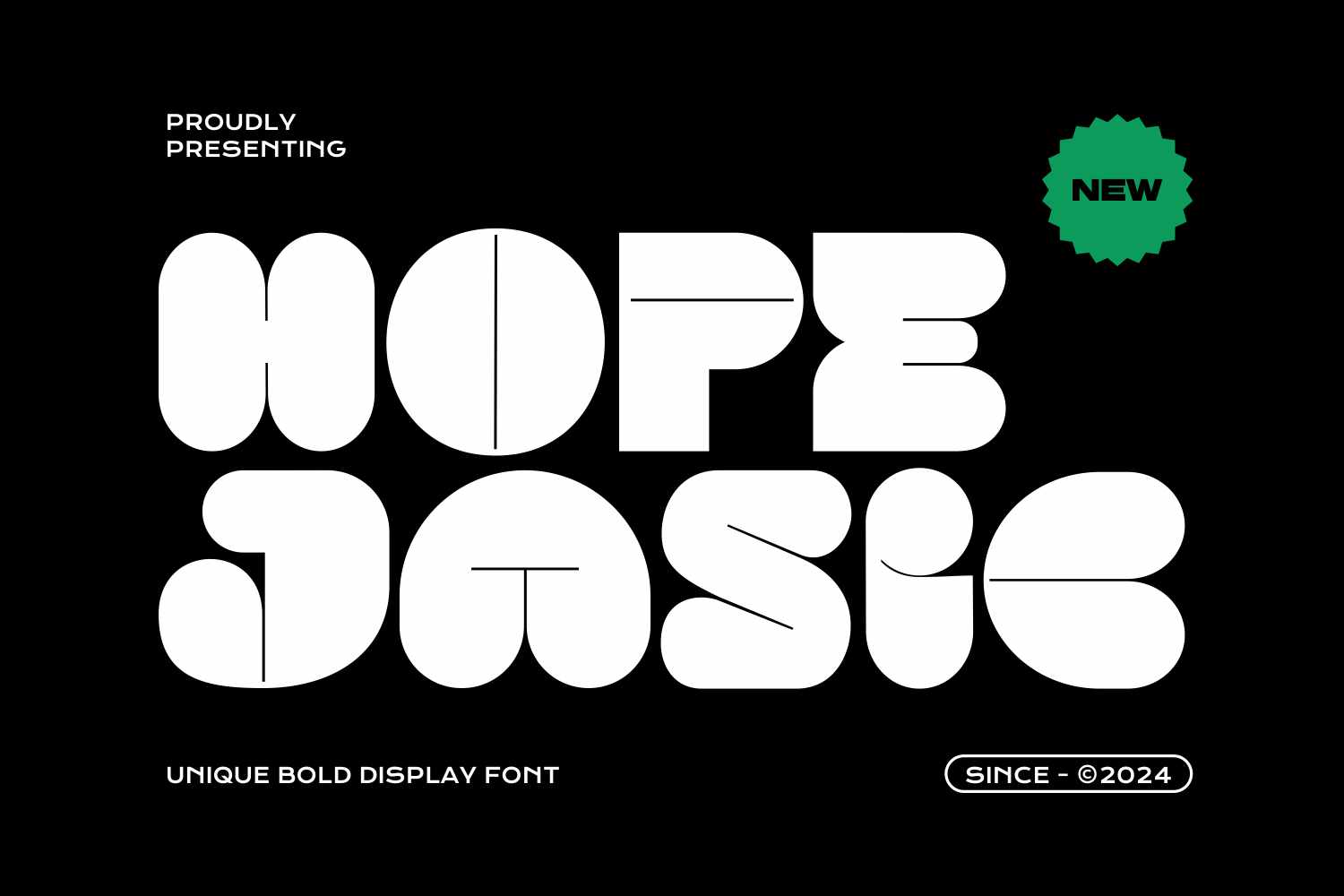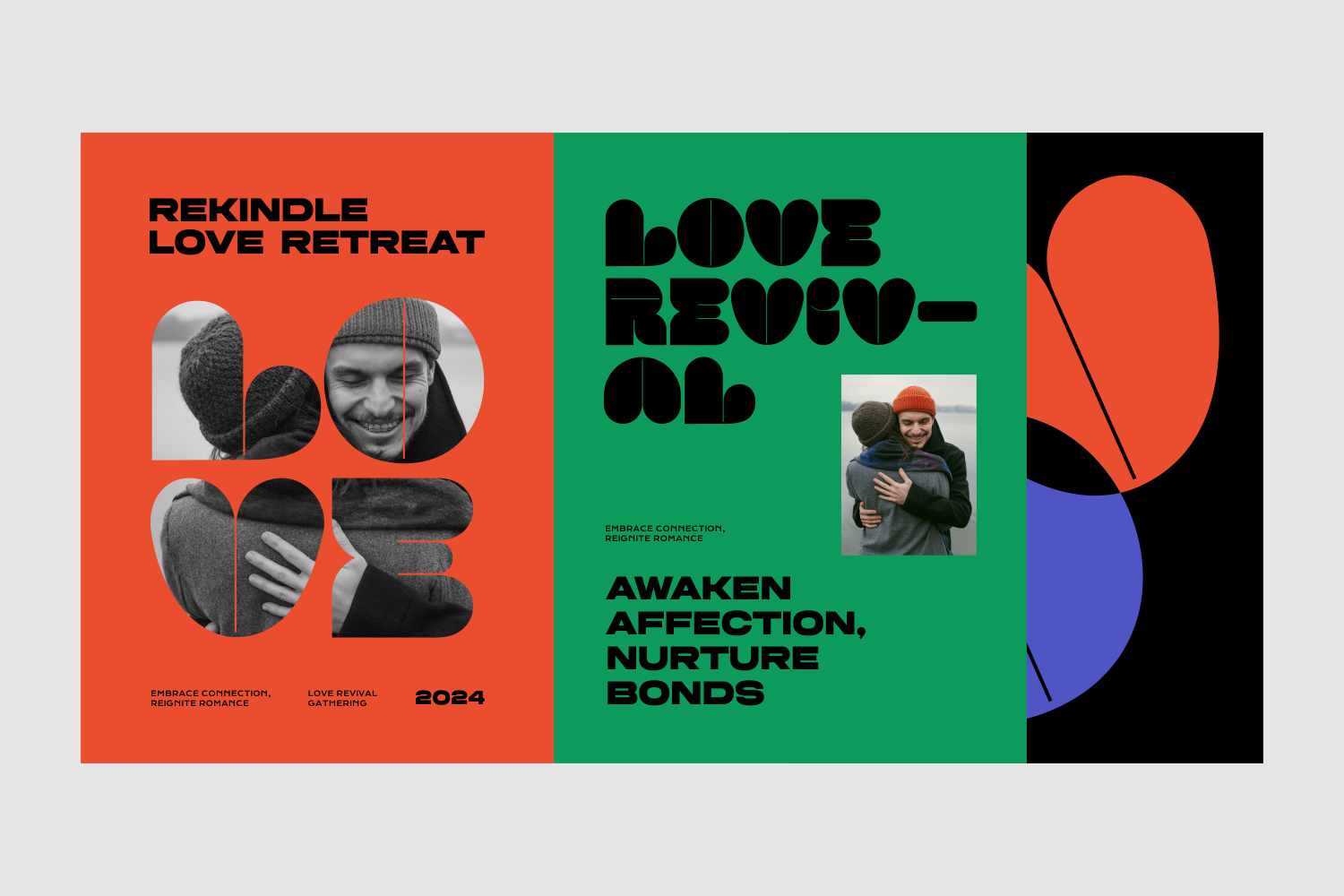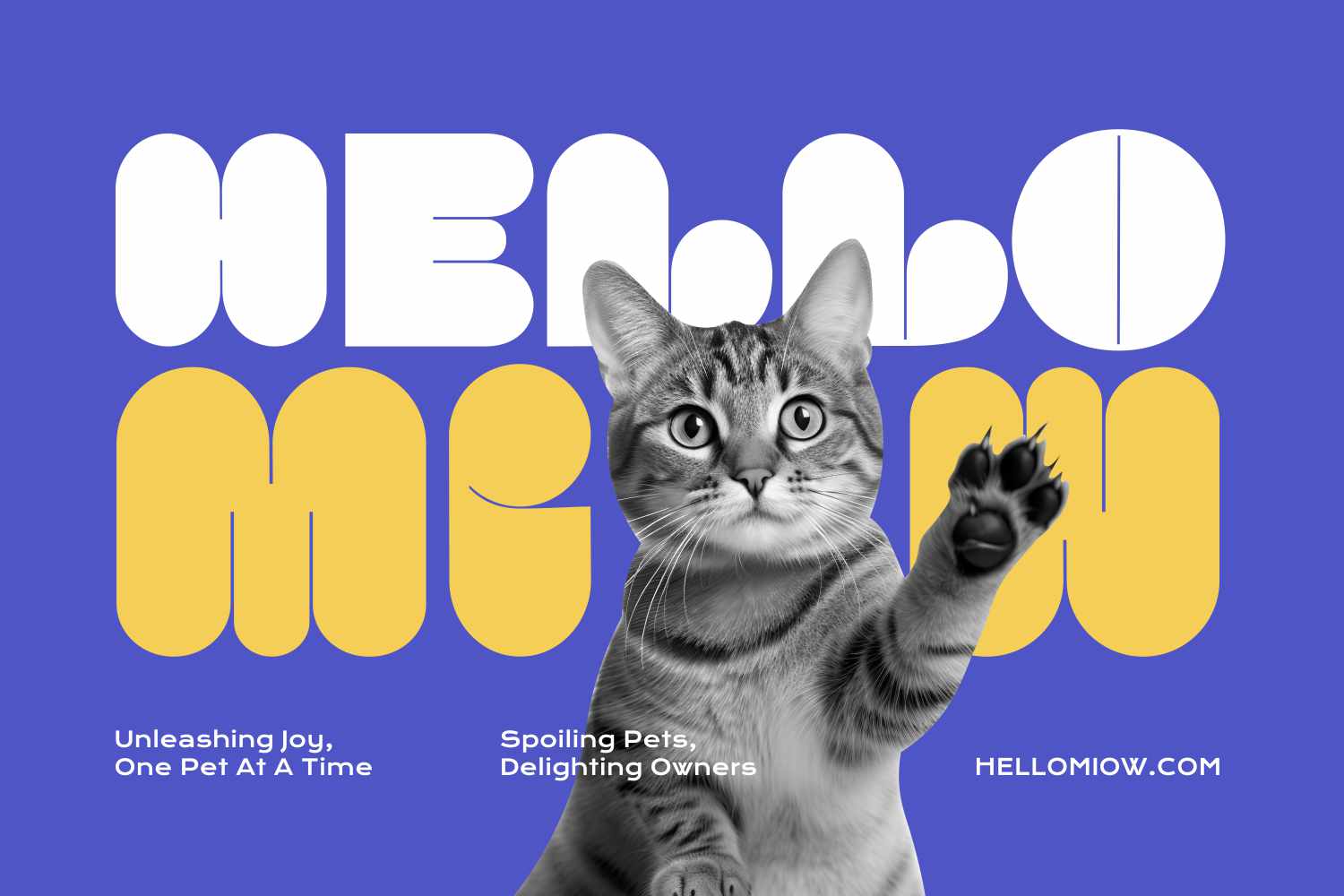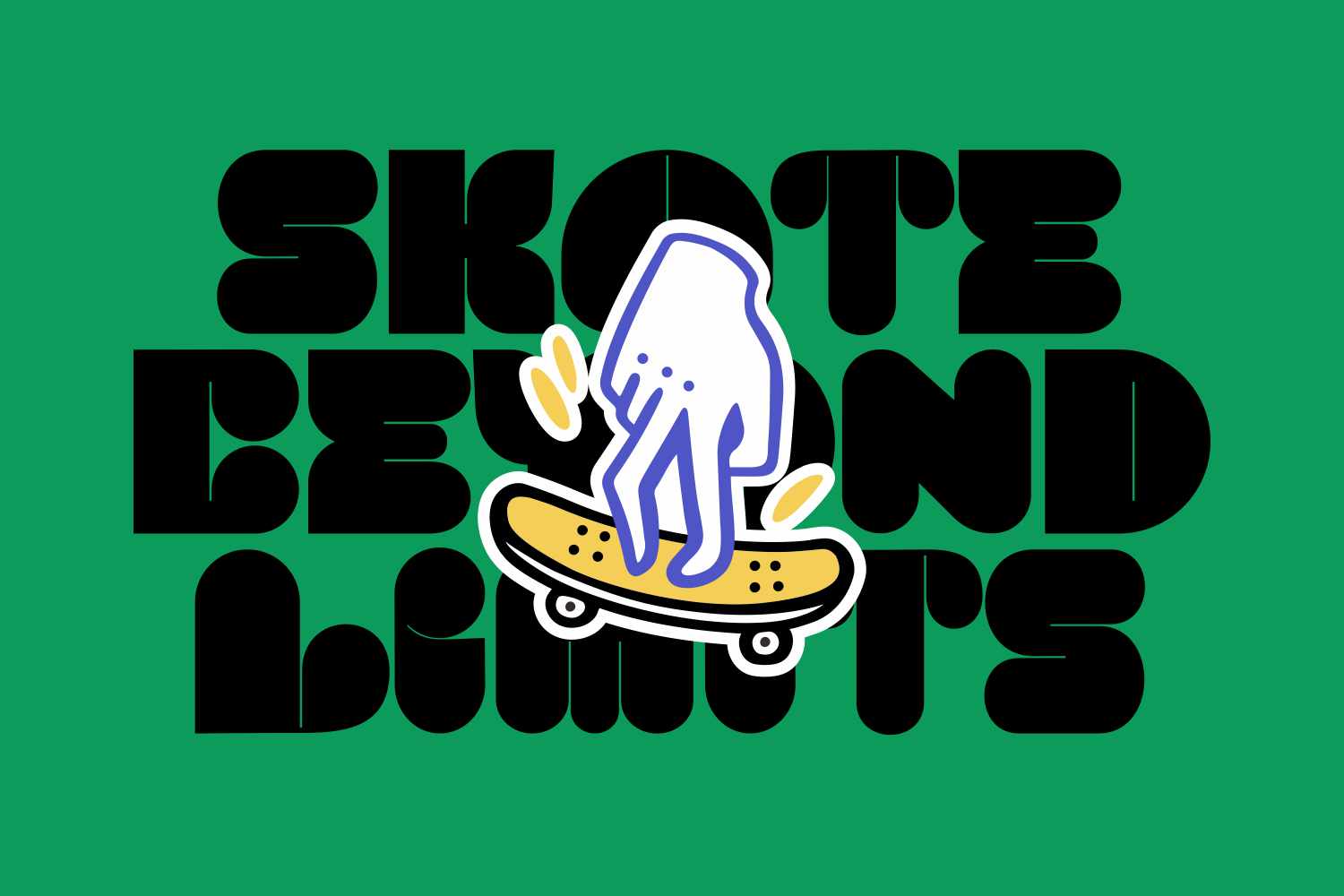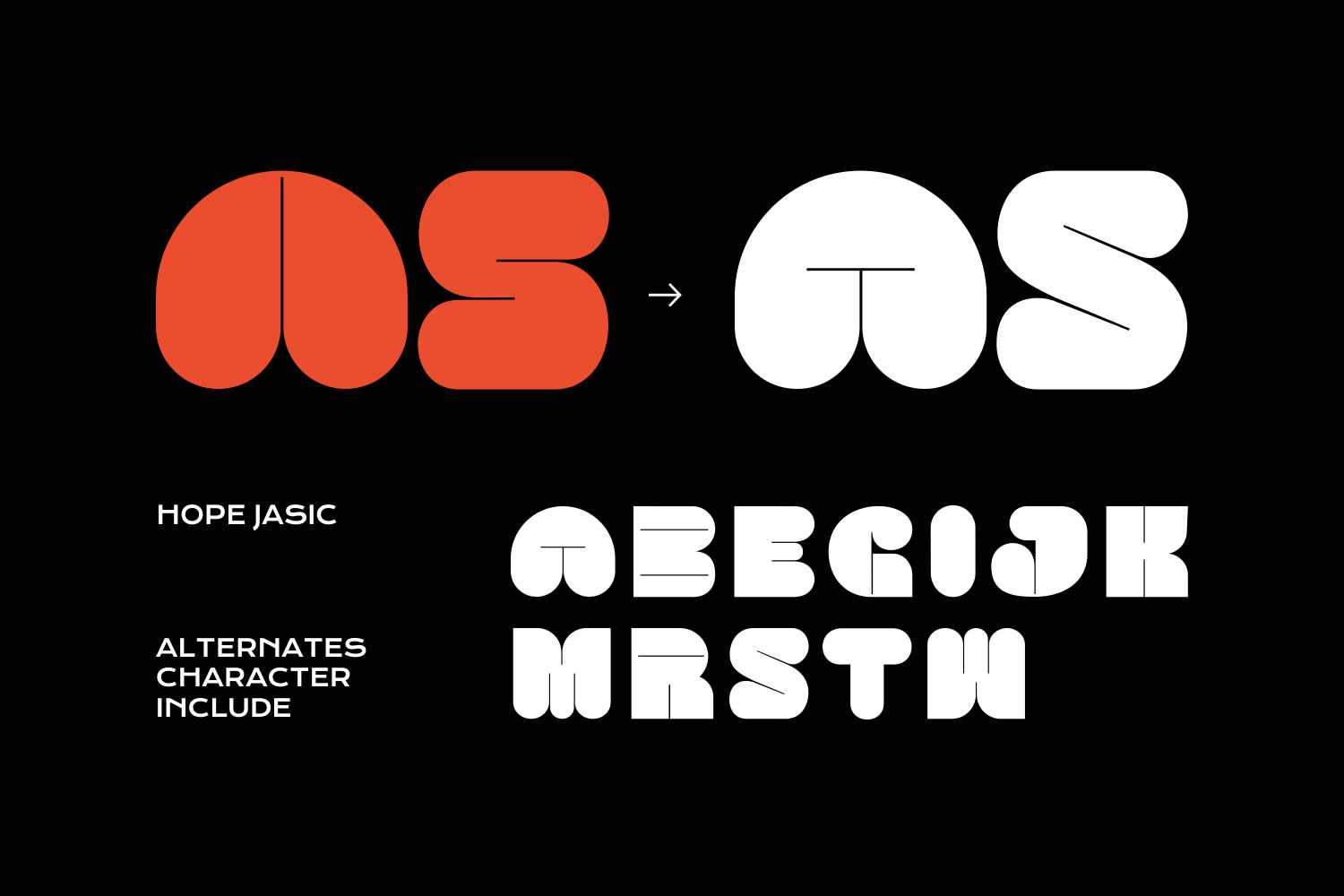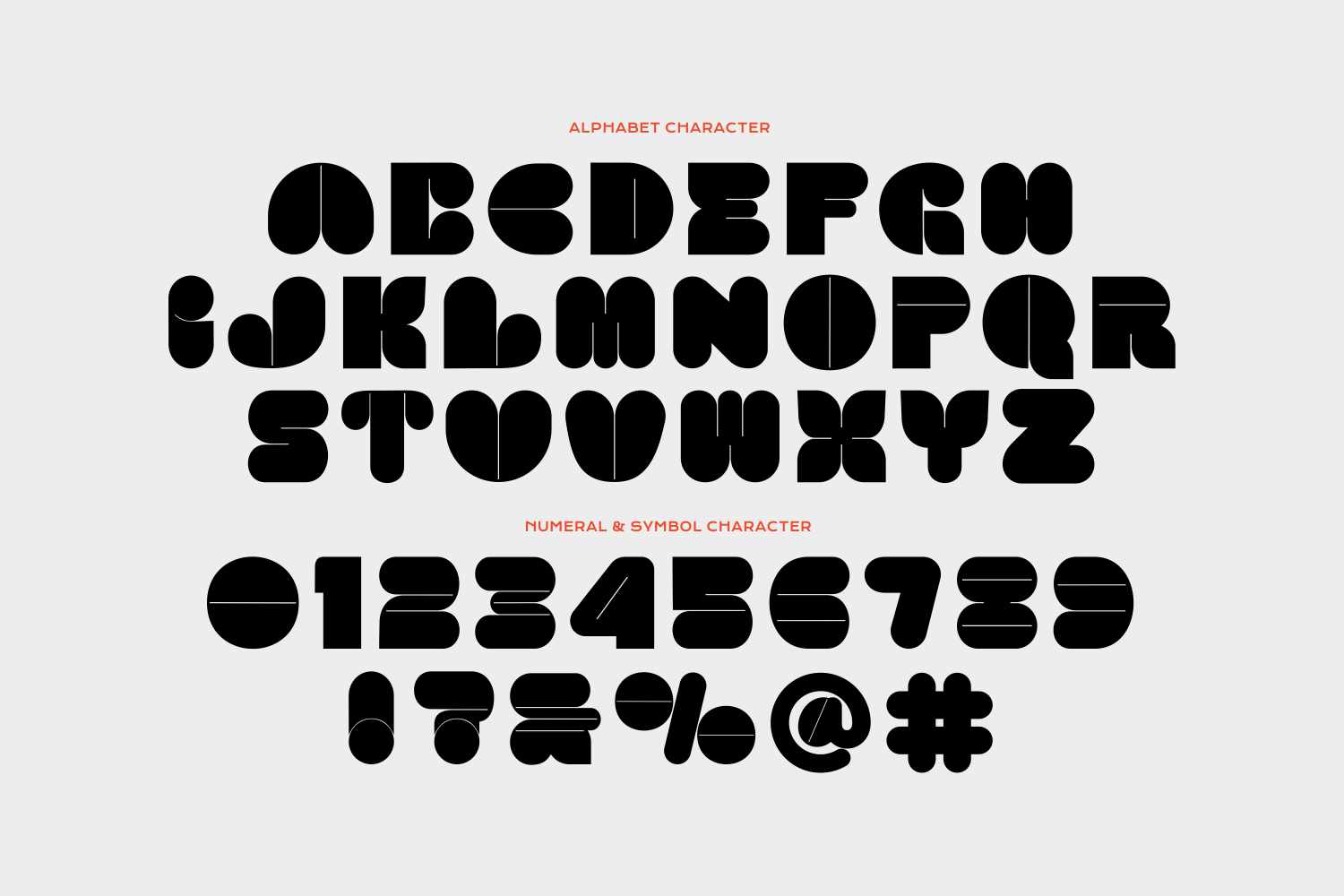
Hope Jasic is a unique bold display font with a modern geometric twist, designed to grab attention with its clean lines and stylish cutouts. Its rounded, blocky letterforms and distinctive split details create a futuristic yet playful vibe, making it perfect for striking headlines, branding, and contemporary posters. This font offers a bold statement while maintaining a balanced and harmonious feel, ideal for projects that demand originality and impact.
With alternate characters included, Hope Jasic gives you the flexibility to customize your designs for added personality and creativity. Perfect for editorial layouts, event promotions, lifestyle branding, and packaging, this typeface shines in both digital and print formats. Whether you’re designing for fashion, music, or modern advertising, Hope Jasic ensures your message stands out with style and confidence.